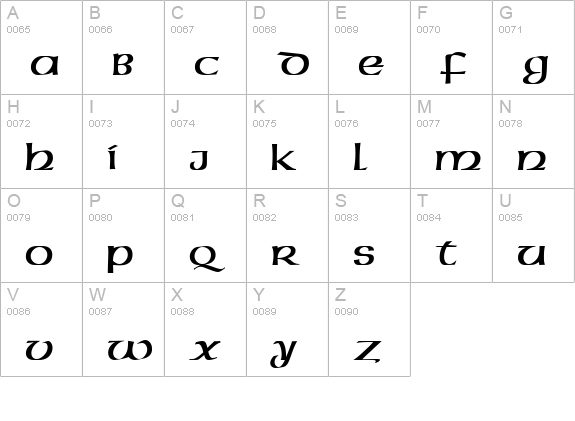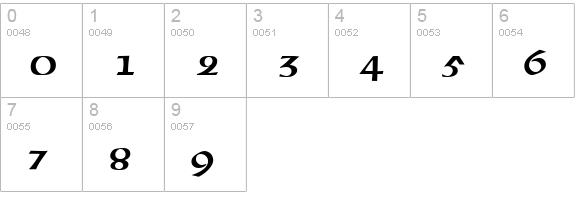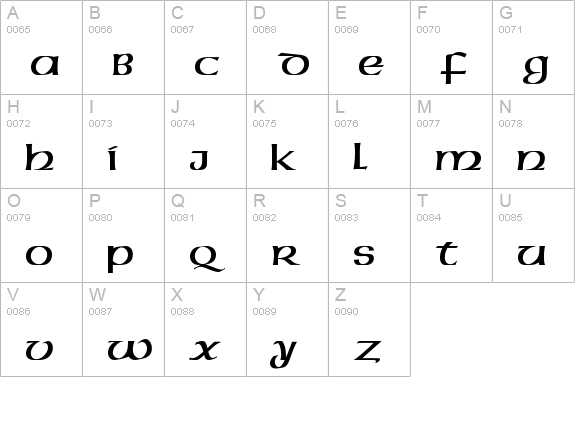
Celtic Normal Font Details
Celtic Normal is the standard, neutral variant in the Celtic typeface family \xE2\x80\x94 well suited to general body text, paragraphs, and standard typographic work.
Celtic Normal is a classic and elegant font inspired by Celtic calligraphy. Its intricate lines and curves evoke a sense of ancient mystery and tradition. With its unique design, Celtic Normal is perfect for adding a touch of Celtic charm to your projects. This versatile font can be used for a variety of purposes, from invitations and greeting cards to branding and packaging. The best part is that Celtic Normal is available for free download at FontsMarket.com. So, whether you're a designer looking for a new font to add to your collection or just someone who appreciates the beauty of Celtic artistry, be sure to check out Celtic Normal and add a touch of Celtic magic to your next project.